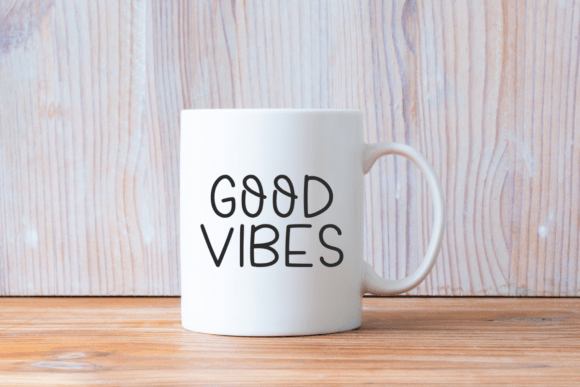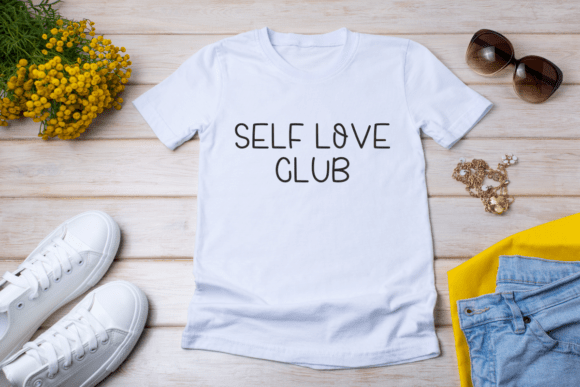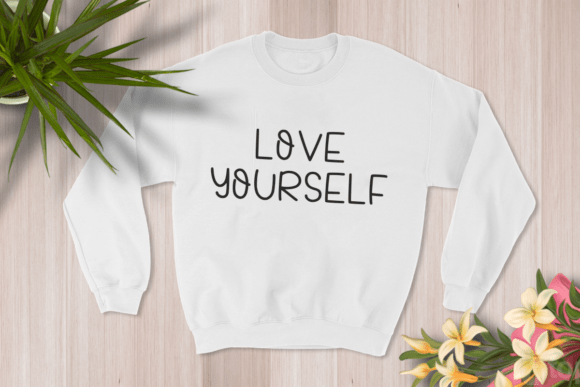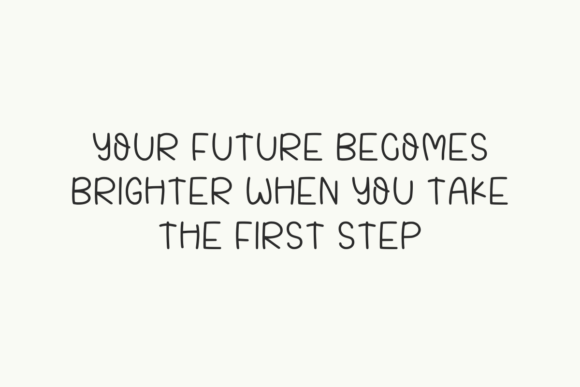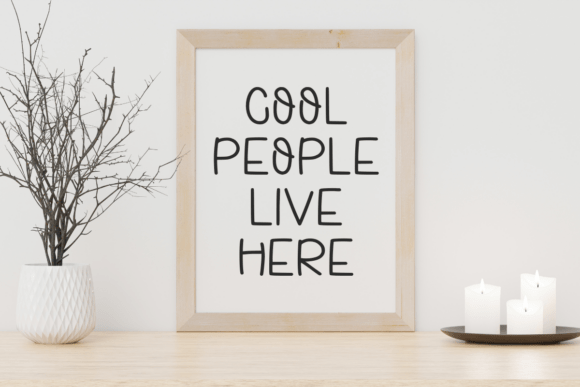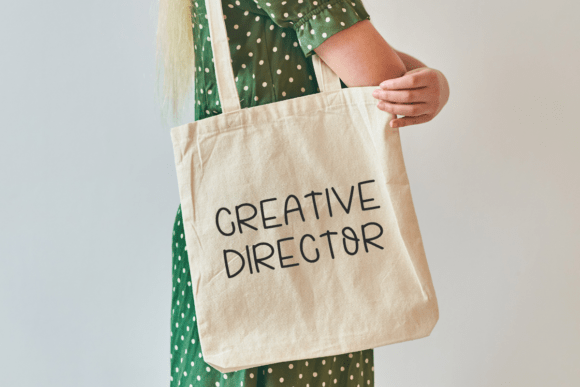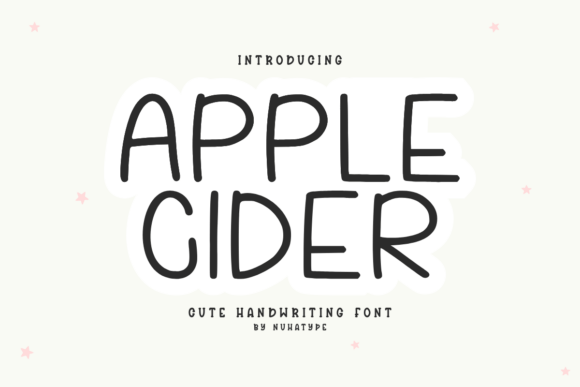
Introducing Apple Cider Font: The Perfect Handwritten Style for Crafty Projects
Are you a crafter, designer, or DIY enthusiast looking for a font that adds a touch of warmth and personality to your projects? Look no further than Apple Cider Font, a delightful sans serif handwriting font that exudes a soft, friendly, and natural vibe. In this article, we’ll dive into the features and benefits of Apple Cider Font, and explore how it can elevate your craft projects, planners, stickers, and more.
A Warm and Handcrafted Feel
Apple Cider Font is designed to bring a sense of warmth and approachability to your designs. Its simple strokes and smooth curves create a gentle, handwritten look that’s perfect for crafty projects. The font’s soft and friendly appearance makes it an excellent choice for projects that require a personal touch, such as greeting cards, kids’ labels, and coloring pages.
Perfect for Crafting Moms and DIY Enthusiasts
Apple Cider Font is a dream come true for crafting moms and DIY enthusiasts who love working with adorable handwritten styles. The font’s ease of use and versatility make it an ideal choice for a wide range of projects, from planners and stickers to worksheets and bullet journals. Whether you’re a seasoned crafter or just starting out, Apple Cider Font is sure to become a favorite in your design arsenal.
Seamless Integration with Cricut and Silhouette
One of the standout features of Apple Cider Font is its compatibility with popular cutting machines like Cricut and Silhouette. The font’s smooth curves and simple strokes make it easy to cut and weed, saving you time and frustration. This means you can focus on creating beautiful projects without the hassle of complicated font files.
Endless Project Possibilities
Apple Cider Font is incredibly versatile, making it suitable for a wide range of projects. Here are just a few ideas to get you started:
• Quotes and inspirational sayings
• Greeting cards and invitations
• Kids’ labels and stickers
• Coloring pages and worksheets
• Bullet journals and planners
• Scrapbooks and photo albums
• Playful graphic projects and signs
Why Choose Apple Cider Font?
So why should you choose Apple Cider Font for your next project? Here are just a few reasons:
• Unique and eye-catching design: Apple Cider Font stands out from the crowd with its soft, friendly, and natural appearance.
• Ease of use: The font is easy to read and work with, making it perfect for designers and crafters of all levels.
• Versatility: Apple Cider Font is suitable for a wide range of projects, from digital designs to handmade crafts.
• Compatibility: The font works seamlessly with popular cutting machines and design software.
Get Creative with Apple Cider Font